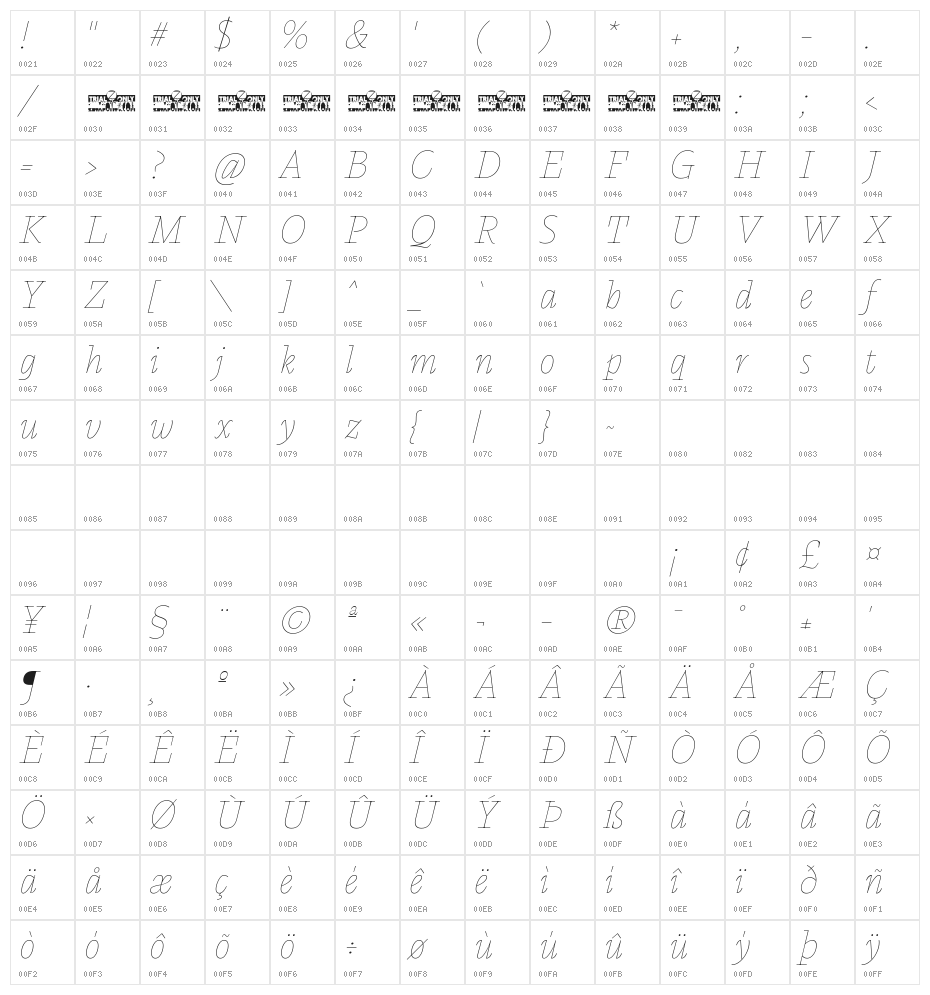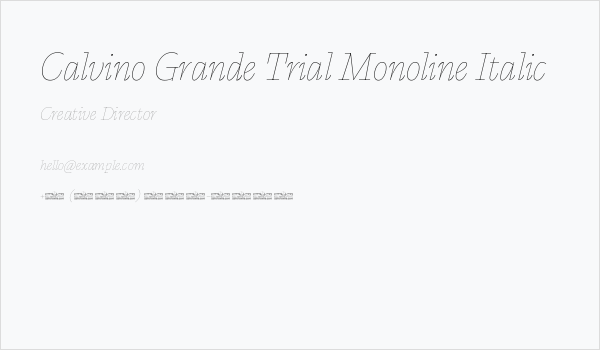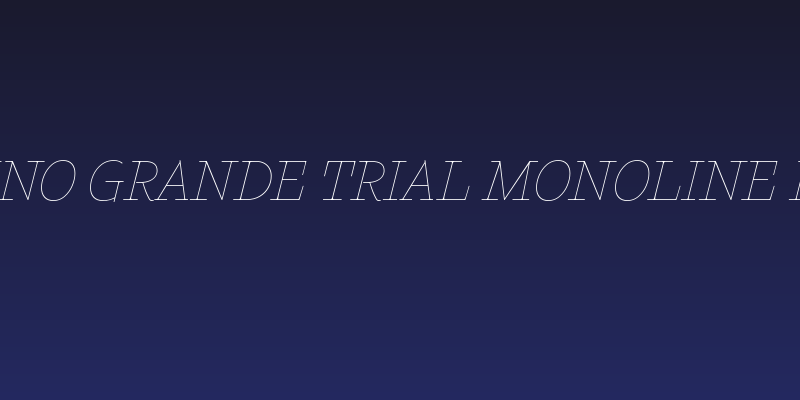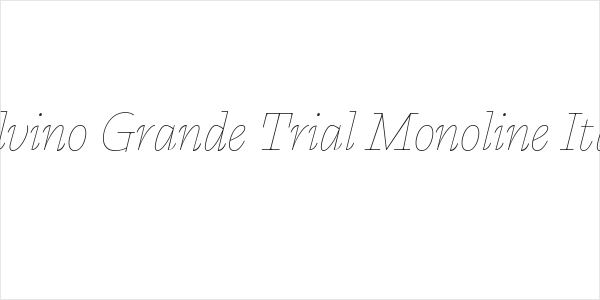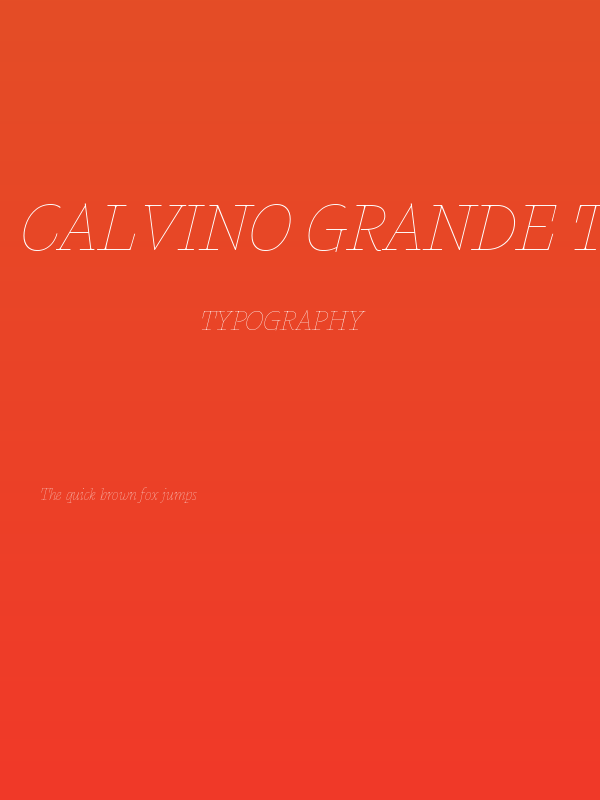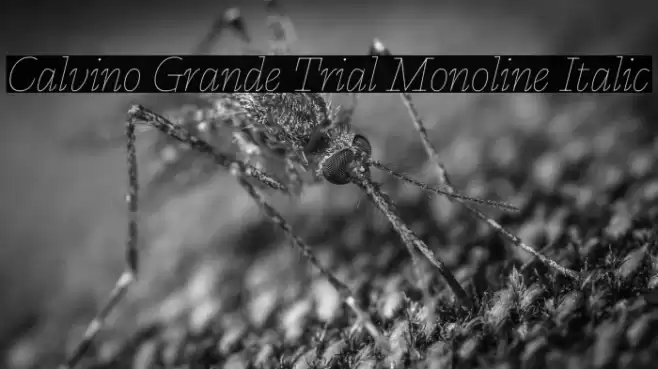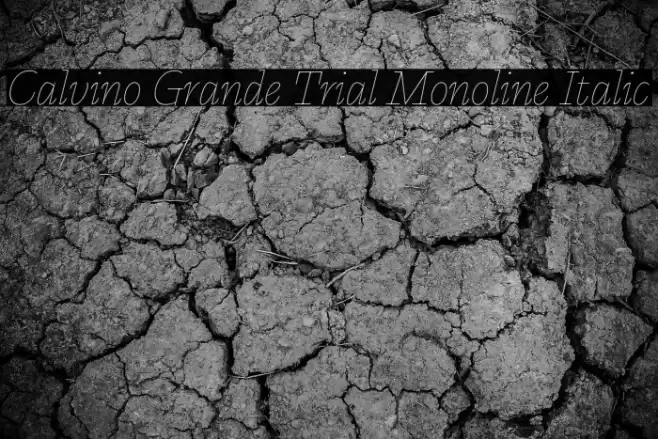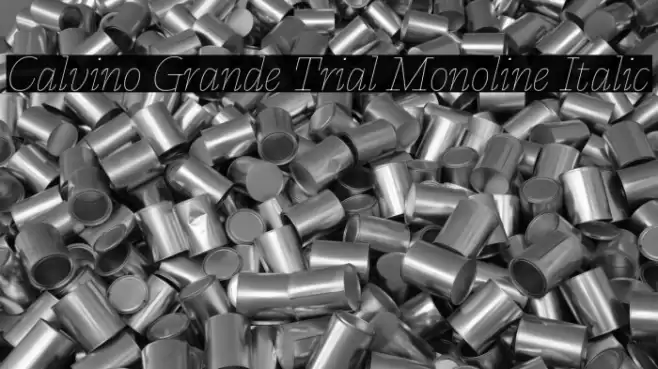
Calvino Grande Trial Monoline Italic Font
Calvino Grande Trial Monoline Italic Description
This elegant typeface features a monoline structure with a distinct italic slant, giving it a sophisticated and fluid appearance. The uppercase letters are tall and slightly narrow, while the lowercase letters maintain a consistent height, contributing to a harmonious flow. The font's thin strokes and minimal contrast create a refined look, ideal for projects that require a touch of elegance. The special characters are seamlessly integrated, maintaining the overall aesthetic. Its clean lines and understated style make it versatile for various design applications.
| Overall Style | Elegant and sophisticated |
| Use Case | Headlines, Logos, Invitations |
| Proposed Projects | Ideal for wedding invitations, luxury branding, elegant editorial layouts, and sophisticated logo designs. |